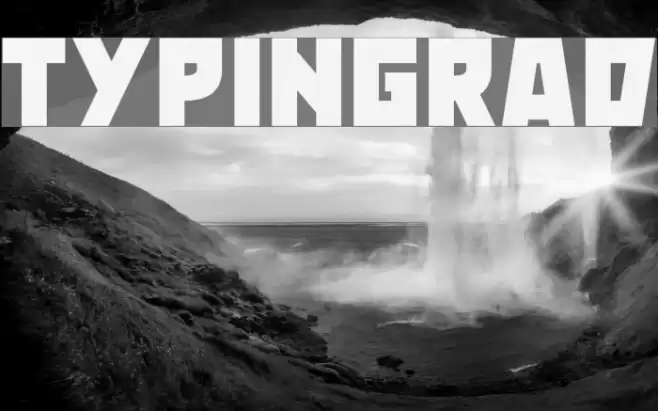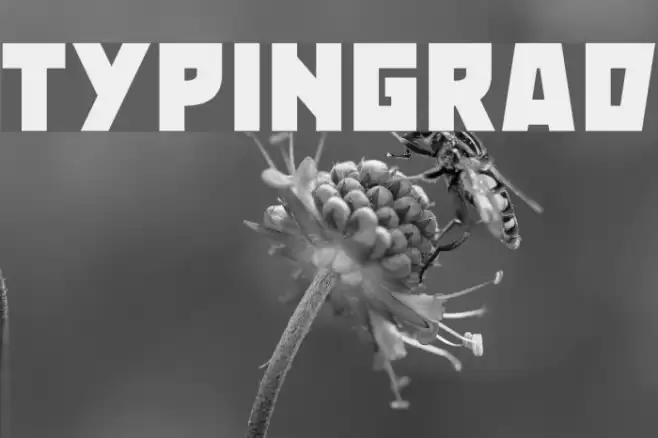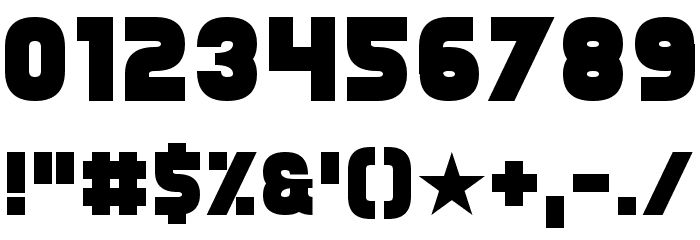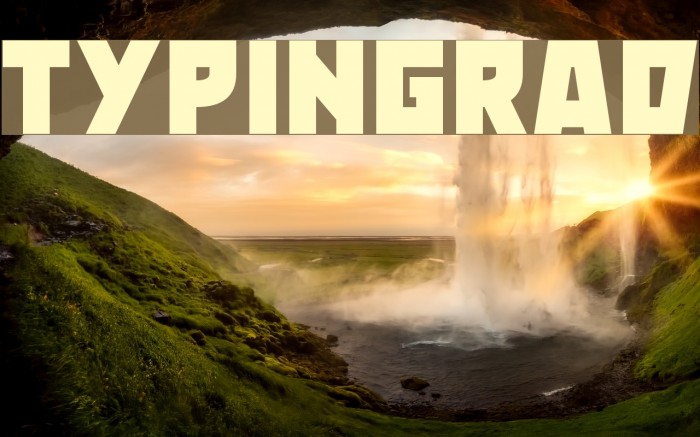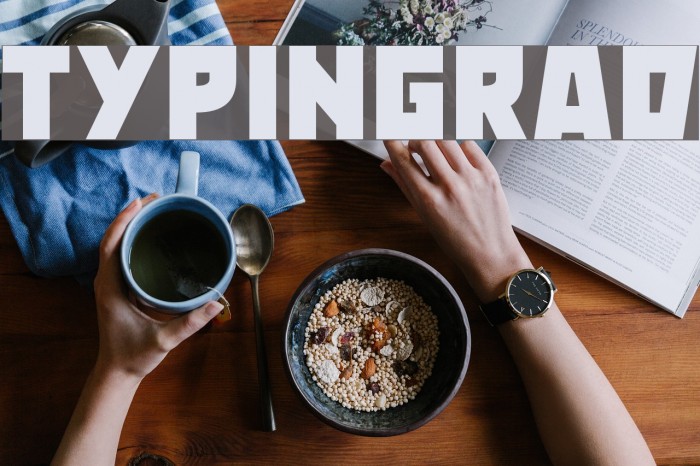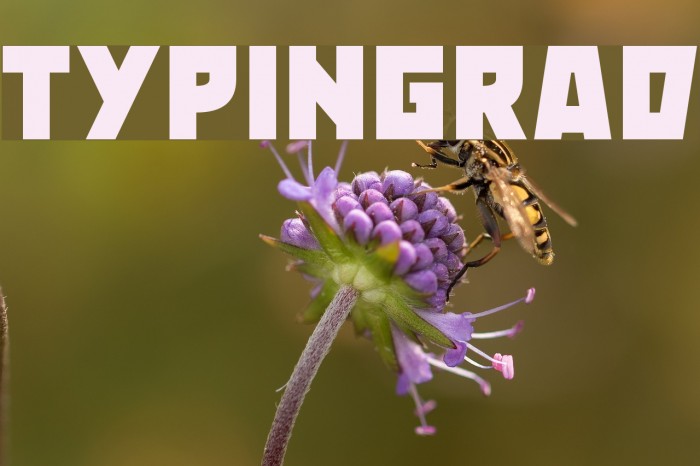
Typingrad Font
Typingrad Description
This font features a bold and impactful design with strong geometric shapes and a modern aesthetic. The characters are constructed with thick strokes and sharp angles, giving them a robust and commanding presence. The uppercase letters are particularly striking, with a uniform height and width that create a cohesive and balanced look. The numerals and special characters maintain this bold style, ensuring consistency across all elements. The font's design is ideal for making a statement, with its high contrast and solid structure making it perfect for attention-grabbing headlines or logos.
A bold, geometric font with strong, impactful characters from Uncategorized fonts.
- Proposed Projects: Ideal for branding, poster design, and any project requiring a strong visual impact.